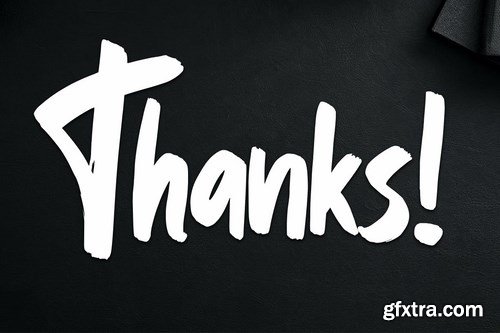
Starless is a natural handmade textured brush font with an irregular base line. Suitable for use in title design. Such as clothes, covers, book titles, films, quotes, branding, logos, greeting cards, t-shirts, packaging designs, posters, and others. Starless includes a complete set of upper and lower case letters, as well as multi-language support, numbers, punctuation, binders.